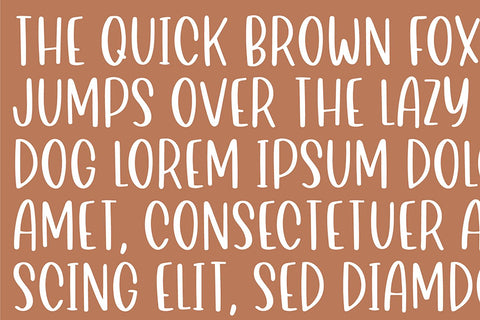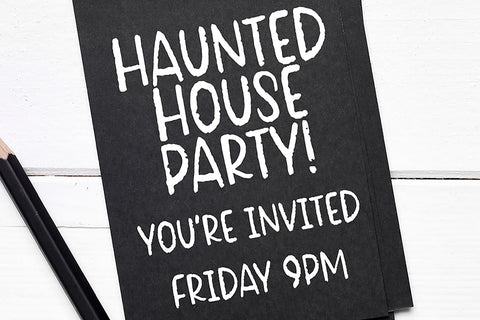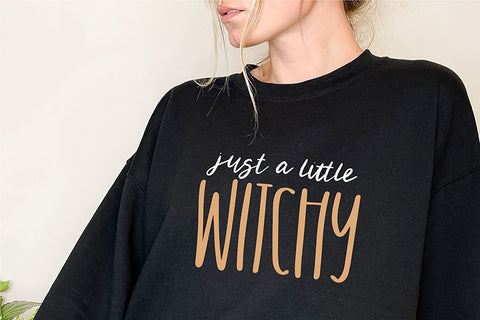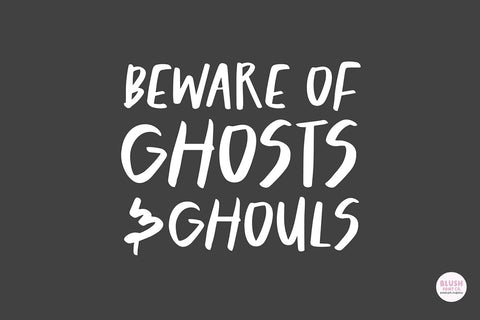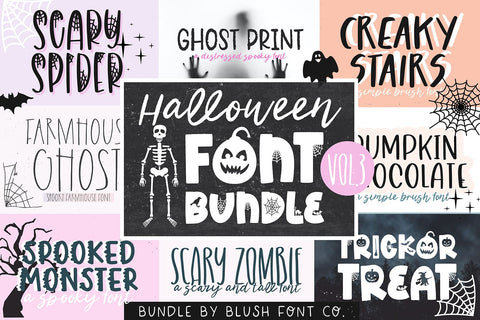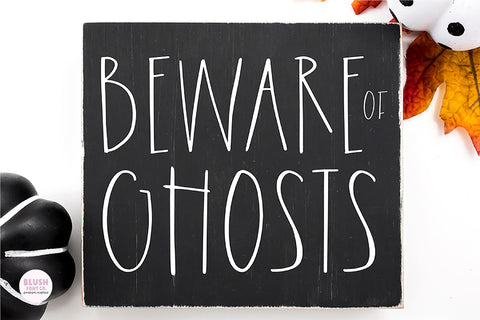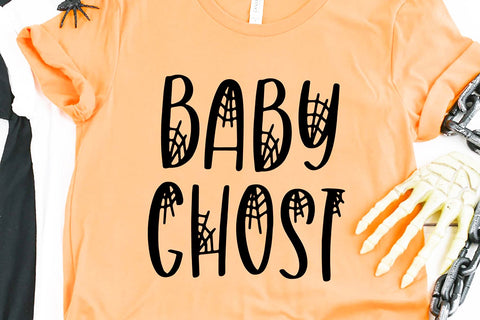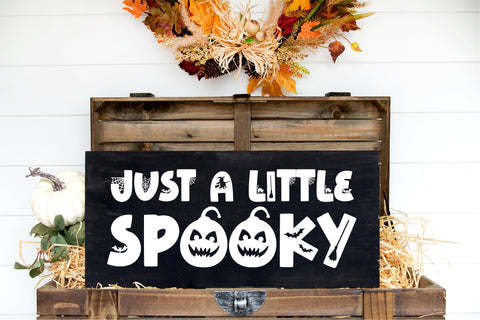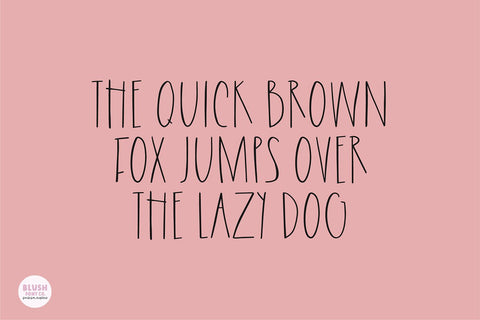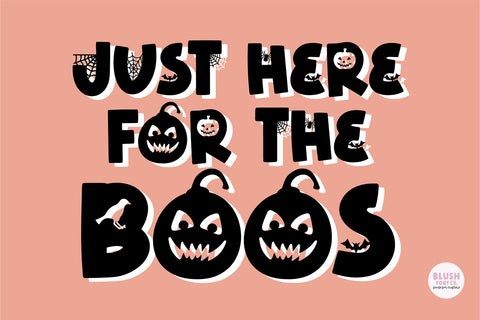
Halloween Font Bundle V3
These fonts were all hand-lettered with a brush and ink, or iPad Pro.
SCARY SPIDER
GHOST PRINT
CREAKY STAIRS
FARMHOUSE GHOST
SPOOKED MONSTER
SCARY ZOMBIE
PUMPKIN CHOCOLATE
TRICK OR TREAT
WITCHY (This is a bonus font from last year that we threw in because we used it on the cover! :)